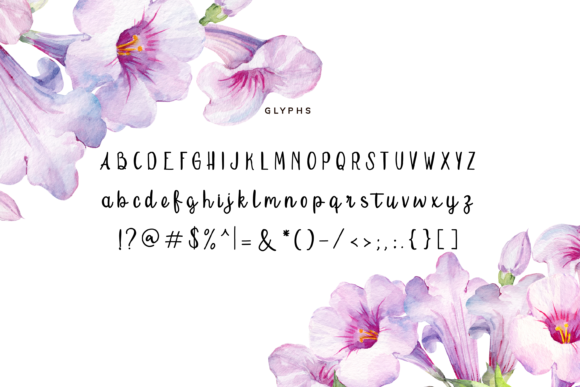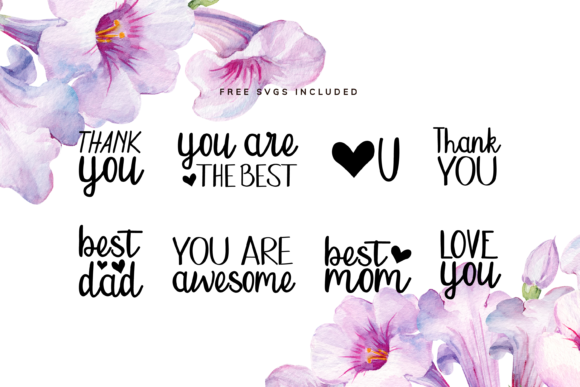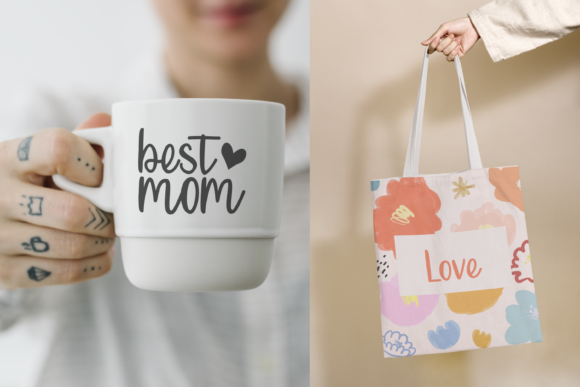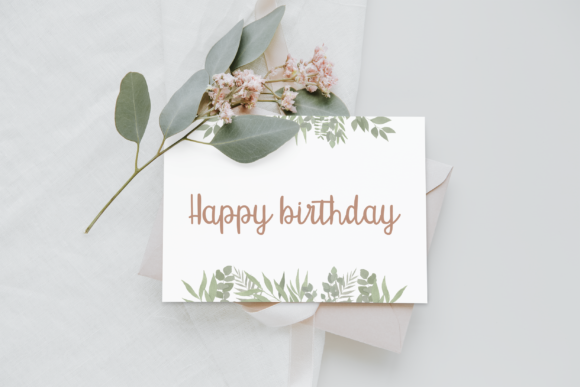
Mio Amore Font
About Mio Amore Font
Mio Amore is a delicate, elegant and flowing handwritten font. It has beautiful and well balanced characters and as a result, it matches a wide pool of designs. Add it to your most creative ideas and notice how it makes them come alive!